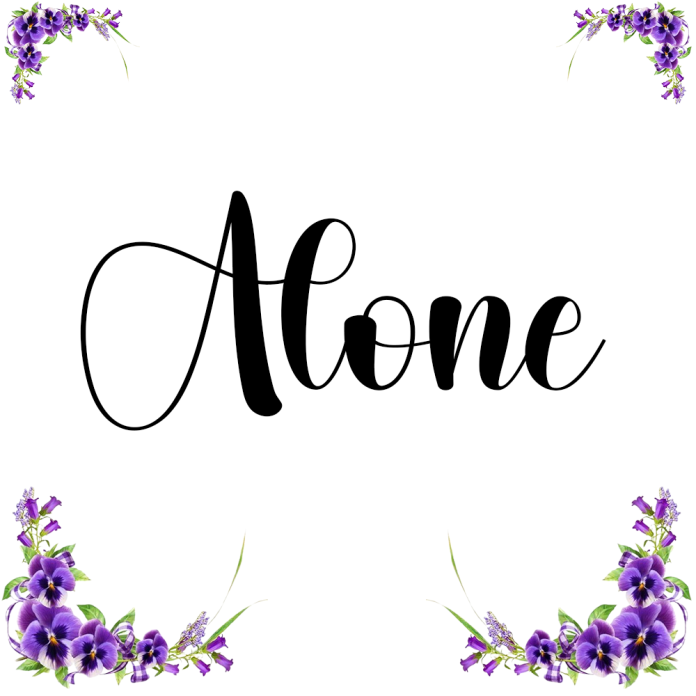
Alone Font is a sweet and friendly handwritten font. Fresh and casual, this font is ideal for writing wedding invitations, cards, or any other design that might need a lovely touch.